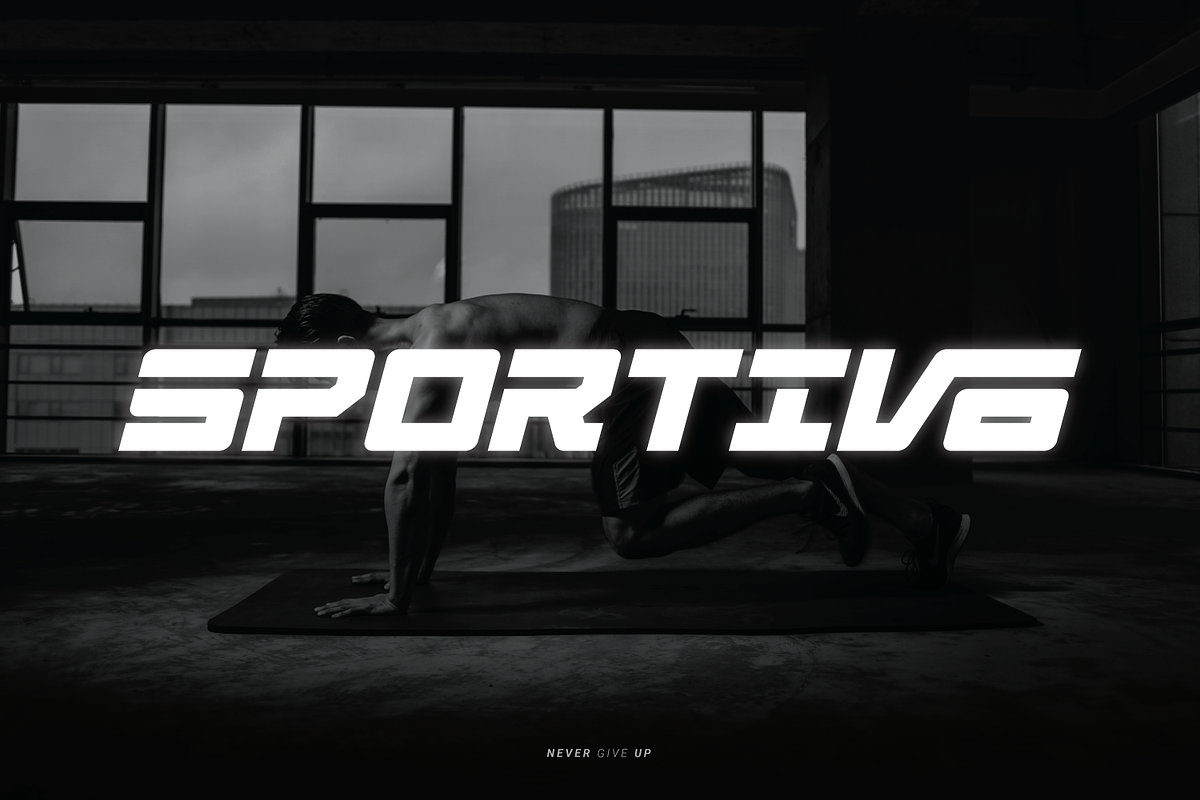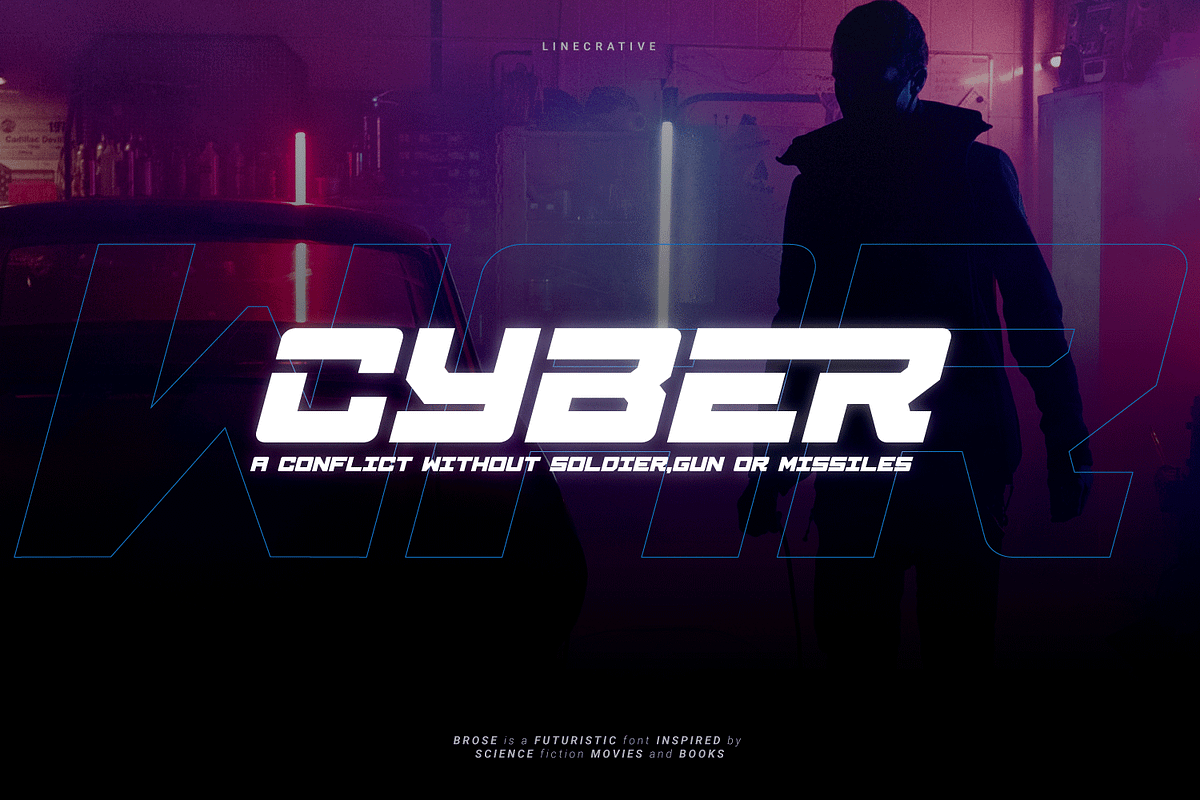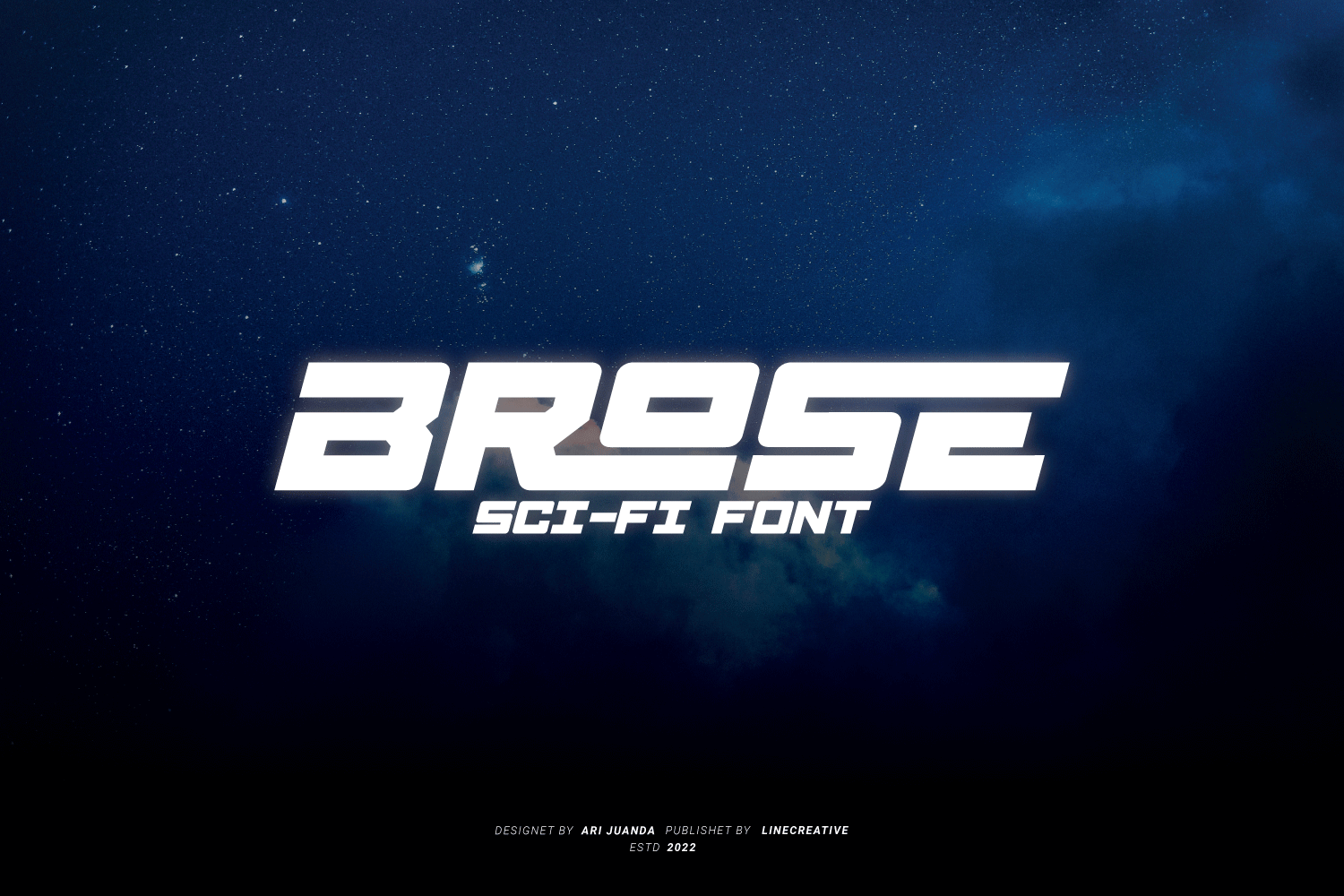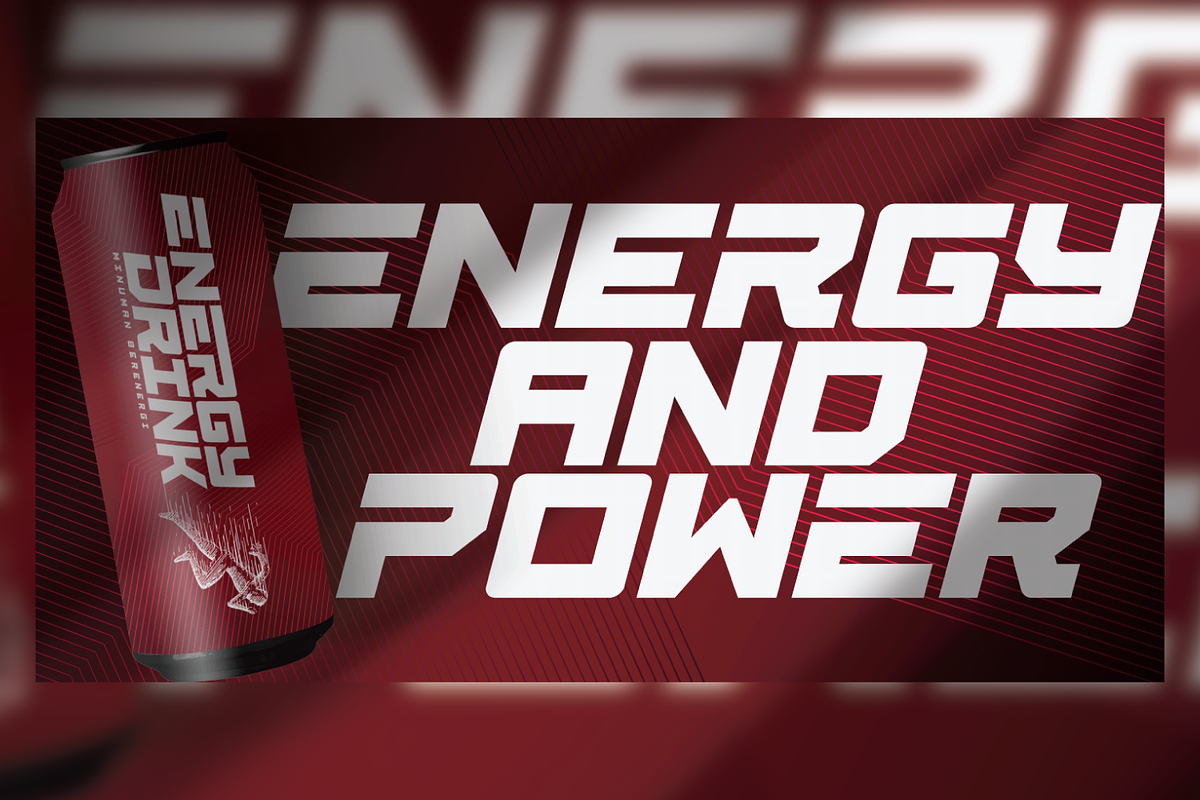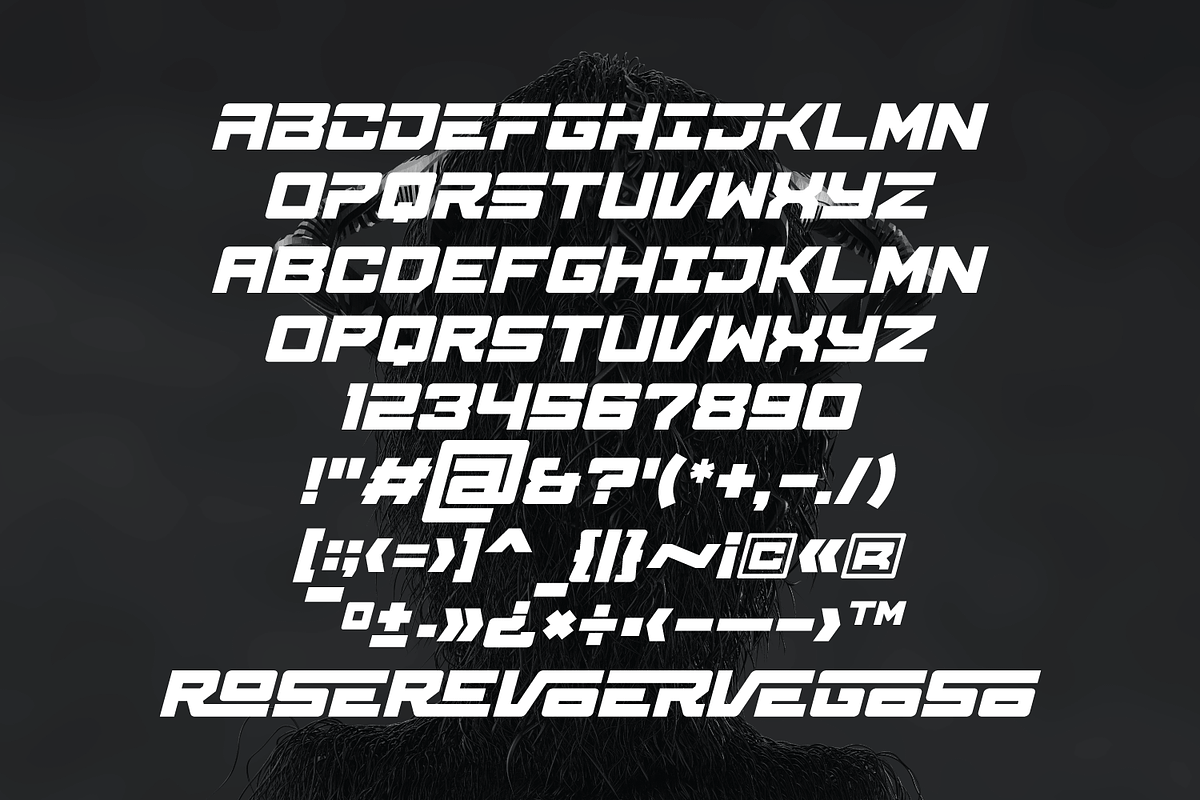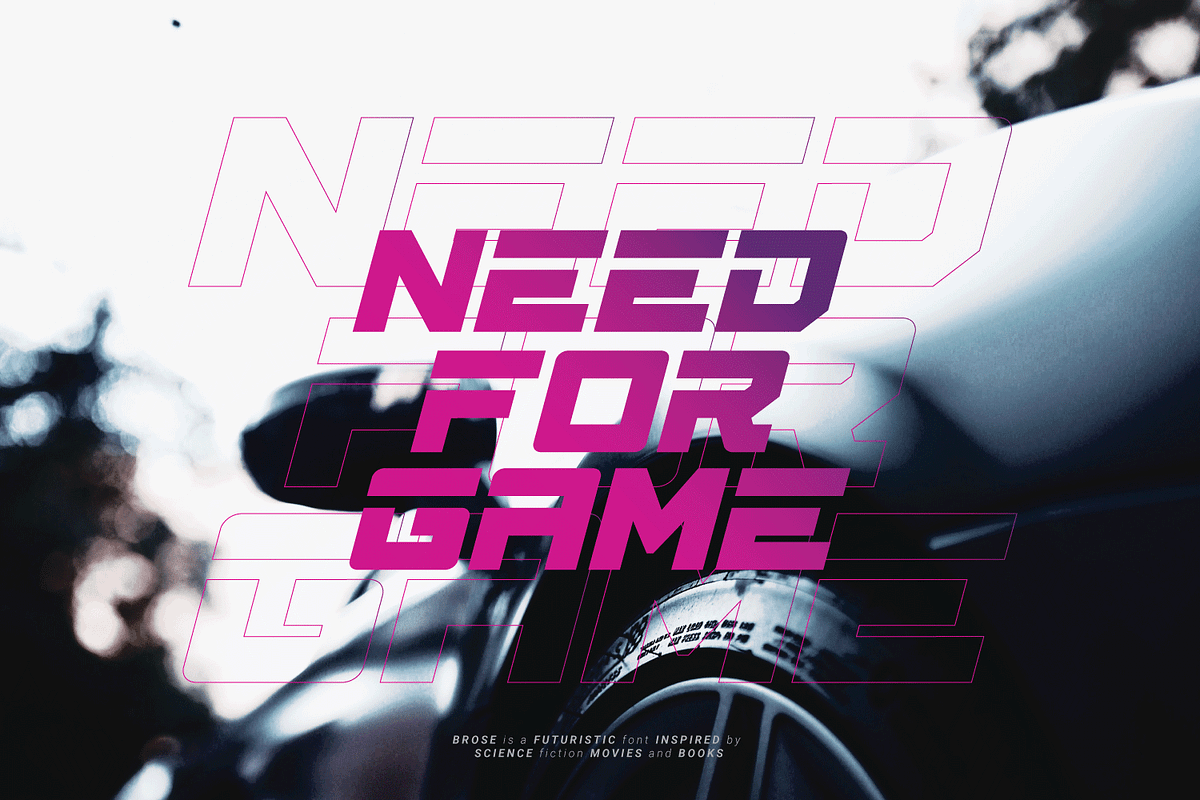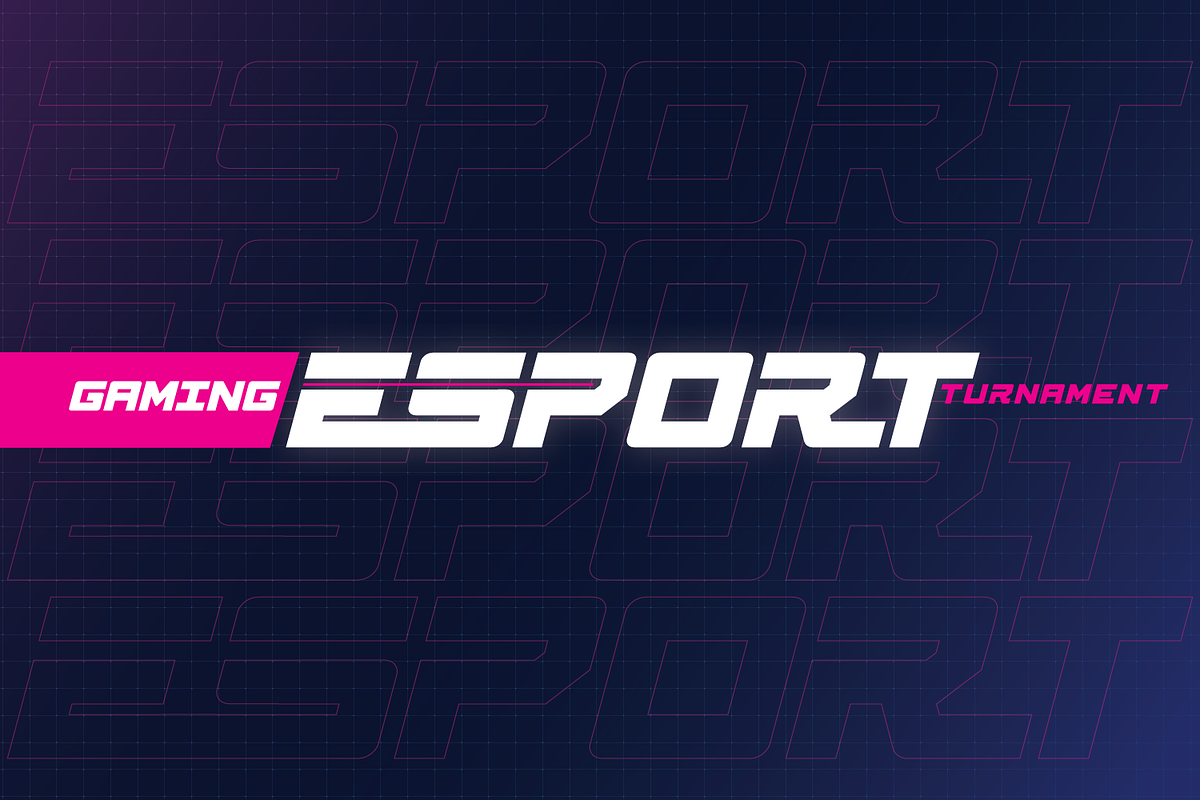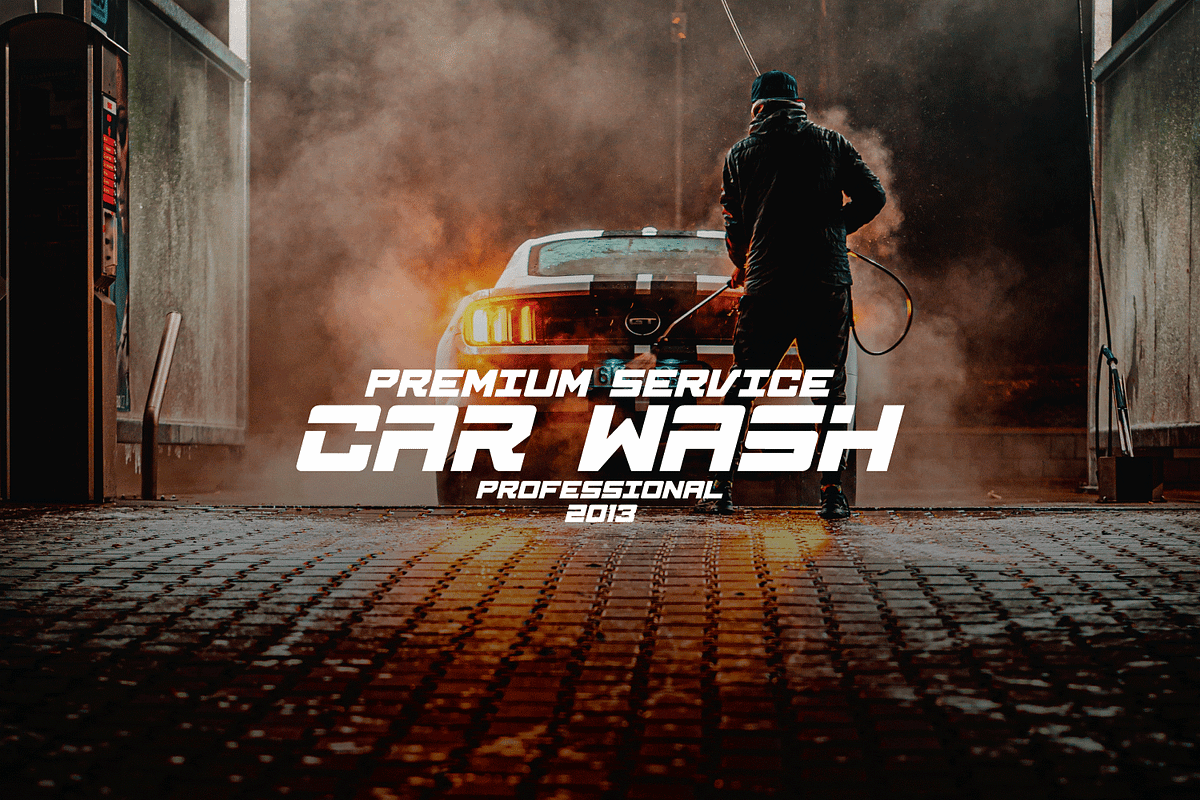
Brose - Futuristic Font
Brose - Bold oblique font with sharp angles for dynamic effects. Use ligature characters to give you unlimited designs, this font is great for your work such as posters, logos, branding, covers, banners, t-shirts and headers, or even large-scale artwork
Brose oblique Bold, offers you:
- Brose -oblique bold font including Upper & Lowercase characters(ALL CAPS has a different form characte),
- Ligatures Character
- Numbers and Punctuation
- Supports Multi linguage (Latin Western Europe), Numbers and Punctuation